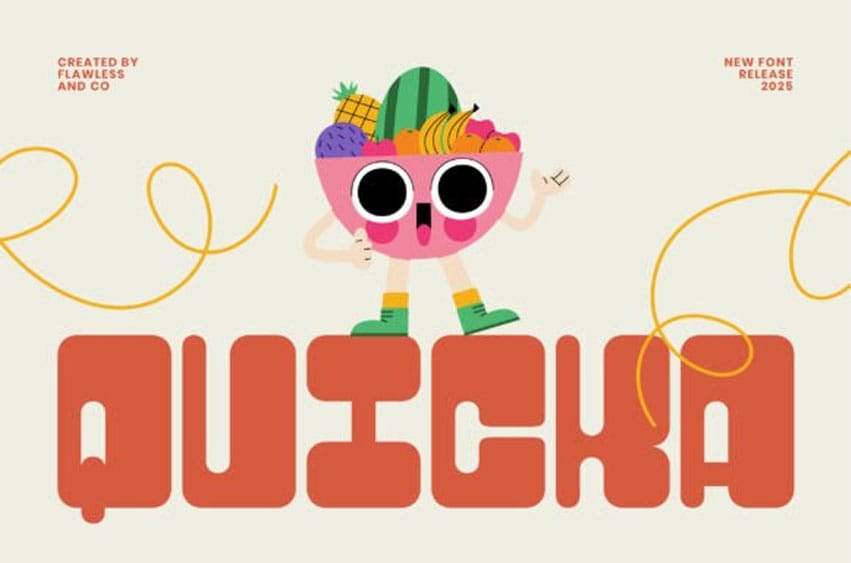
Quicka Font is a bold display sans font that bursts with fun, energy, and personality.
Designed to grab attention instantly, Quicka combines chunky letterforms with smooth curves, making it the perfect choice for eye-catching headlines, playful branding, and modern logo design.